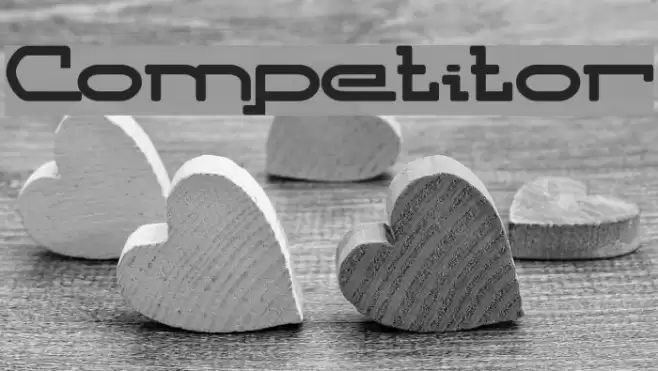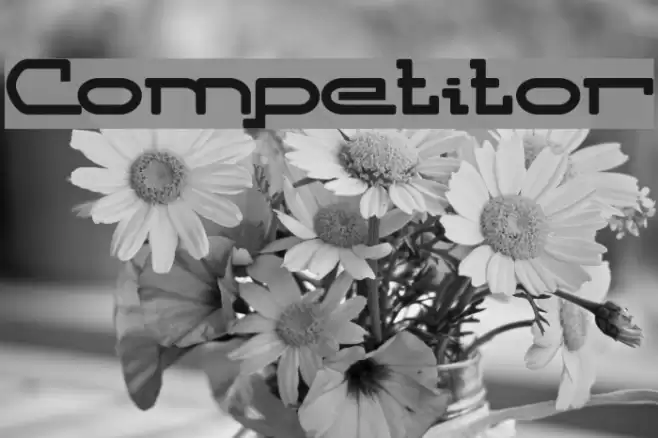
Competitor Font
Competitor Description
This font features a modern, geometric design with a futuristic flair. The characters are constructed with clean, straight lines and sharp angles, giving it a sleek and technical appearance. The uppercase letters are uniform in height, while the lowercase letters maintain a consistent baseline, enhancing readability. The numerals and special characters follow the same geometric style, ensuring a cohesive look across all elements. The font's unique style is both eye-catching and versatile, making it suitable for a variety of design applications.
A modern, geometric font with a futuristic and technical design from Futuristic fonts.
- Proposed Projects: Ideal for technology branding, sci-fi themed projects, video game interfaces, and modern advertising campaigns.
- Overall Style: Futuristic